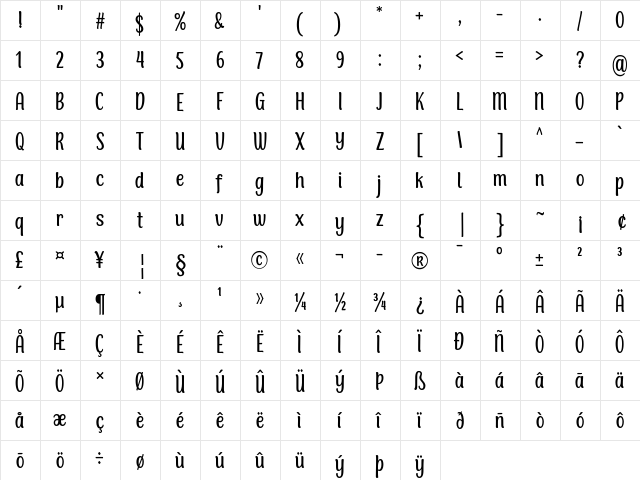
Anticed Regular
| Foundry | 7NTypes |
| Designer | Jasman Nazara; Situjuh Nazara |
Design Context for Anticed Typeface
Anticed offers clean, dependable letterforms without strong stylistic allegiance, making it a practical choice for designers who need flexibility.